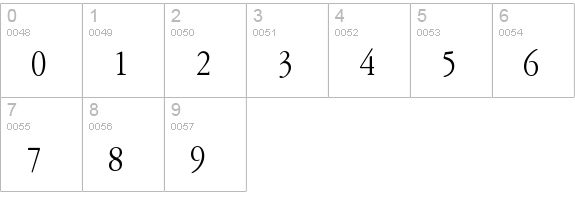
Amery Thin Normal is a delicate, low-contrast variant in the Amery typeface family \xE2\x80\x94 well suited to fashion editorial, minimal branding, and high-contrast display.
Amery Thin Normal is a sleek and minimalist font that exudes elegance and sophistication. Its thin strokes and clean lines make it perfect for a variety of design projects, from branding to editorial layouts. With a contemporary and stylish appearance, Amery Thin Normal is sure to make a statement. The best part is that this font is available for free download at FontsMarket.com. Whether you're a designer looking to add a modern touch to your work or a business owner wanting to elevate your branding, Amery Thin Normal is a versatile and eye-catching choice. Don't miss out on the opportunity to enhance your projects with this stunning font - download it for free today!